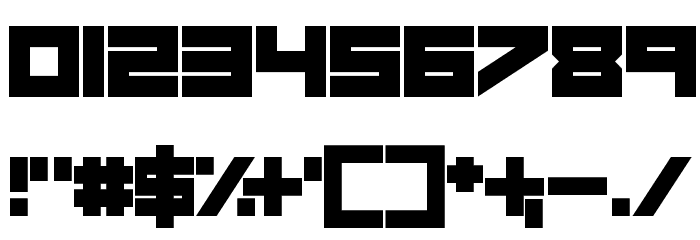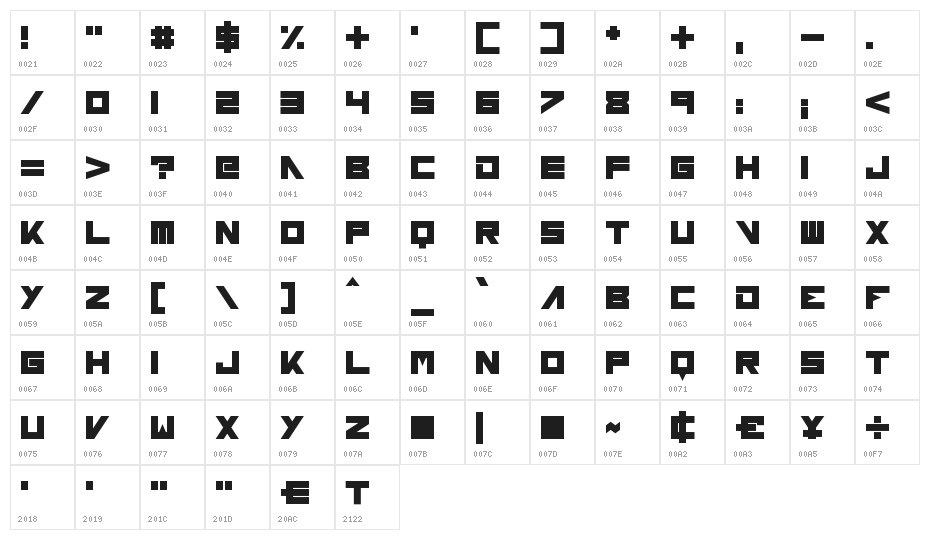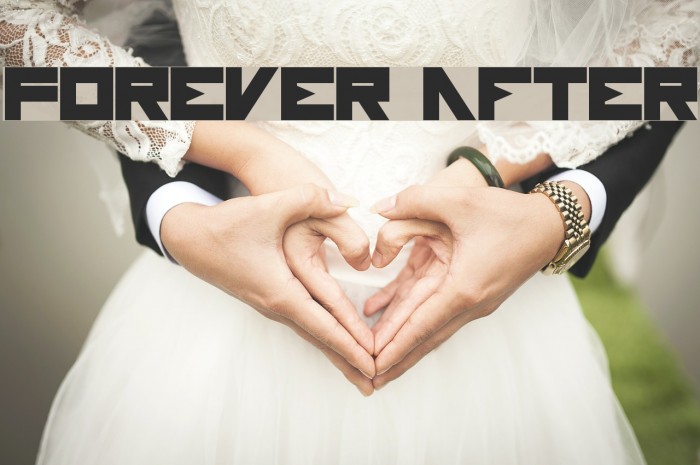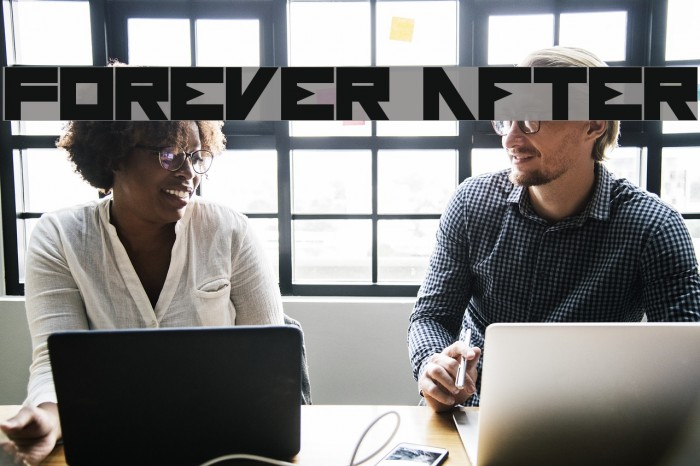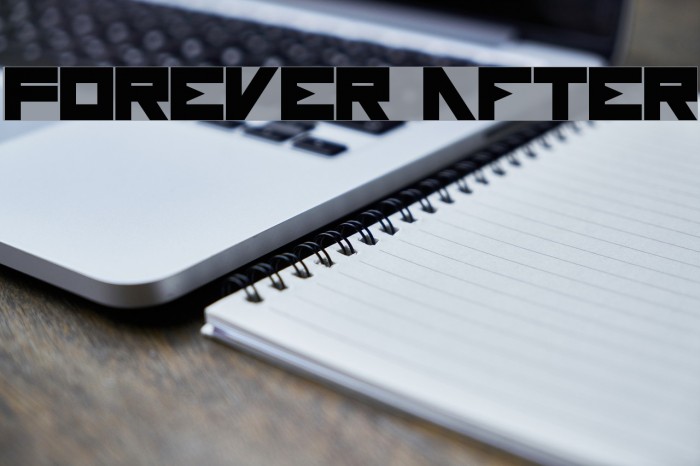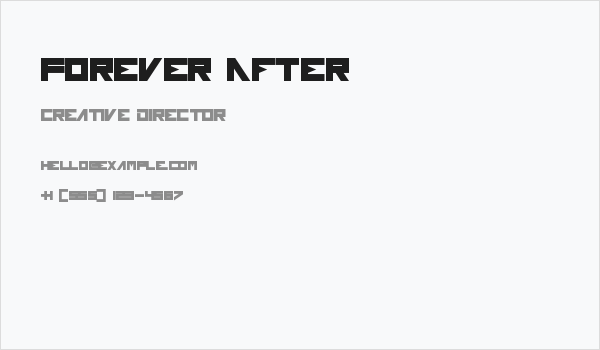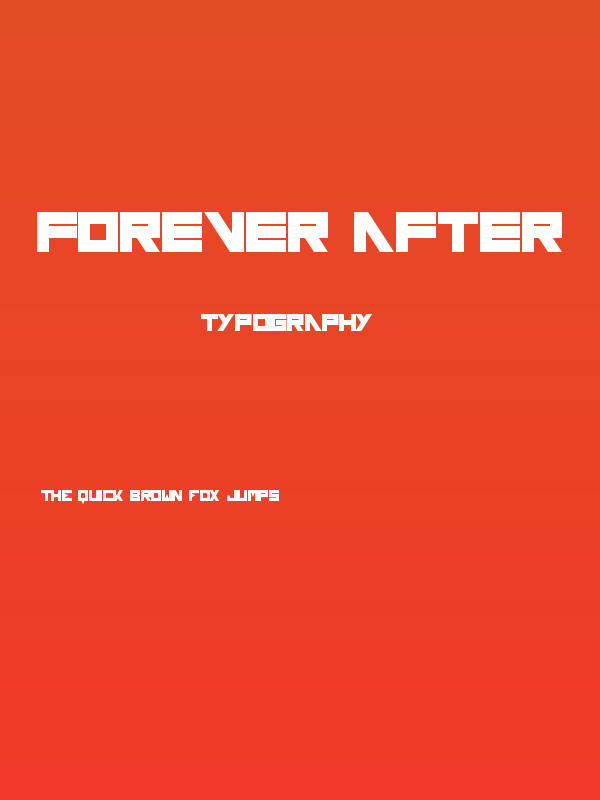
Forever After Font
Forever After Description
This font features a bold, geometric style with sharp angles and a futuristic aesthetic. The characters are constructed with thick, block-like forms that give a sense of strength and modernity. The uppercase and lowercase letters maintain a consistent design, emphasizing straight lines and angular cuts. Numbers and special characters follow the same design principles, ensuring uniformity across all glyphs. The font's boldness and unique style make it stand out, suitable for projects that require a strong visual impact.
| Proposed Projects | Ideal for sci-fi themed projects, video game titles, technology branding, and modern posters. |